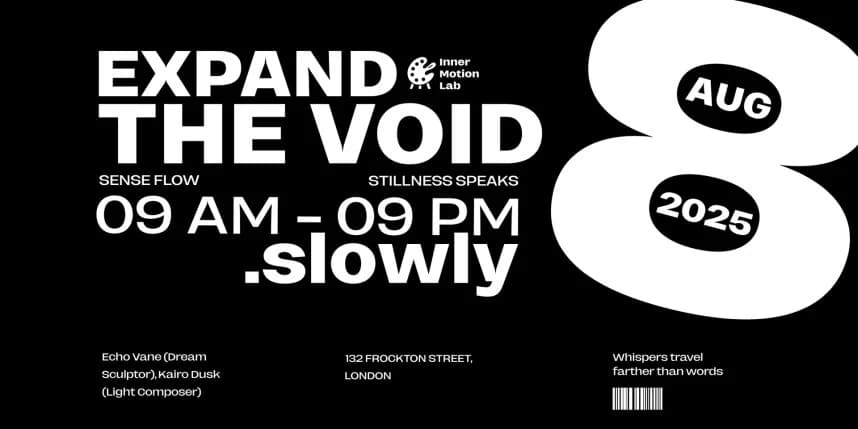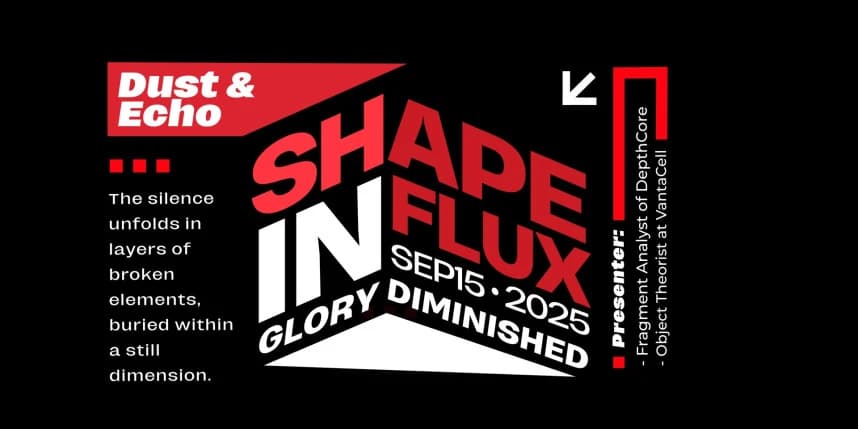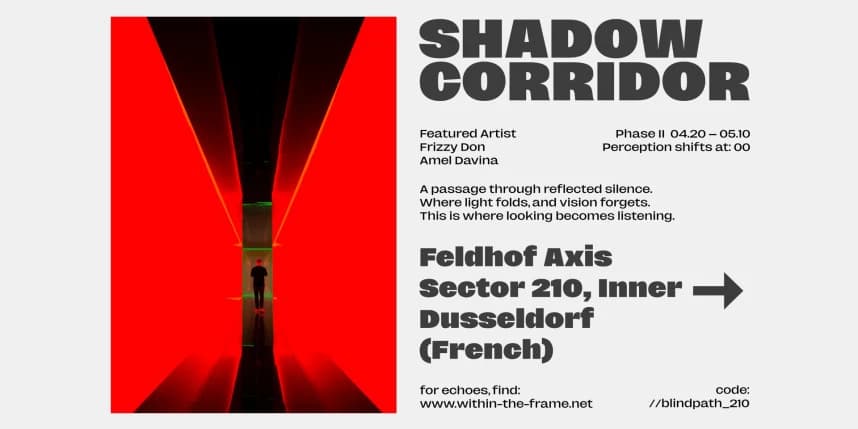
Merica Grotesk Font Family is a muscular sans-serif with an unapologetic presence. Its bold, geometric construction speaks with confidence, designed to command attention without losing its modern sharpness. The thick, even weight makes it ideal for impactful headlines, branding, and messages that mu
Merica Grotesk Font Family is a muscular sans-serif with an unapologetic presence. Its bold, geometric construction speaks with confidence, designed to command attention without losing its modern sharpness. The thick, even weight makes it ideal for impactful headlines, branding, and messages that must be seen as much as read.